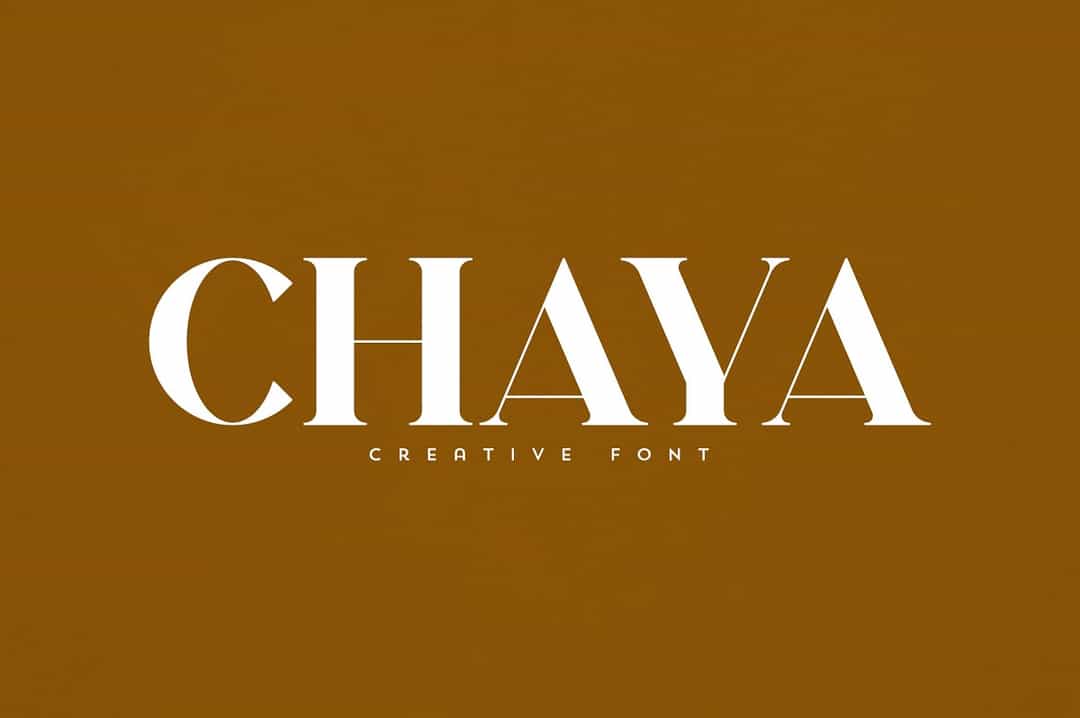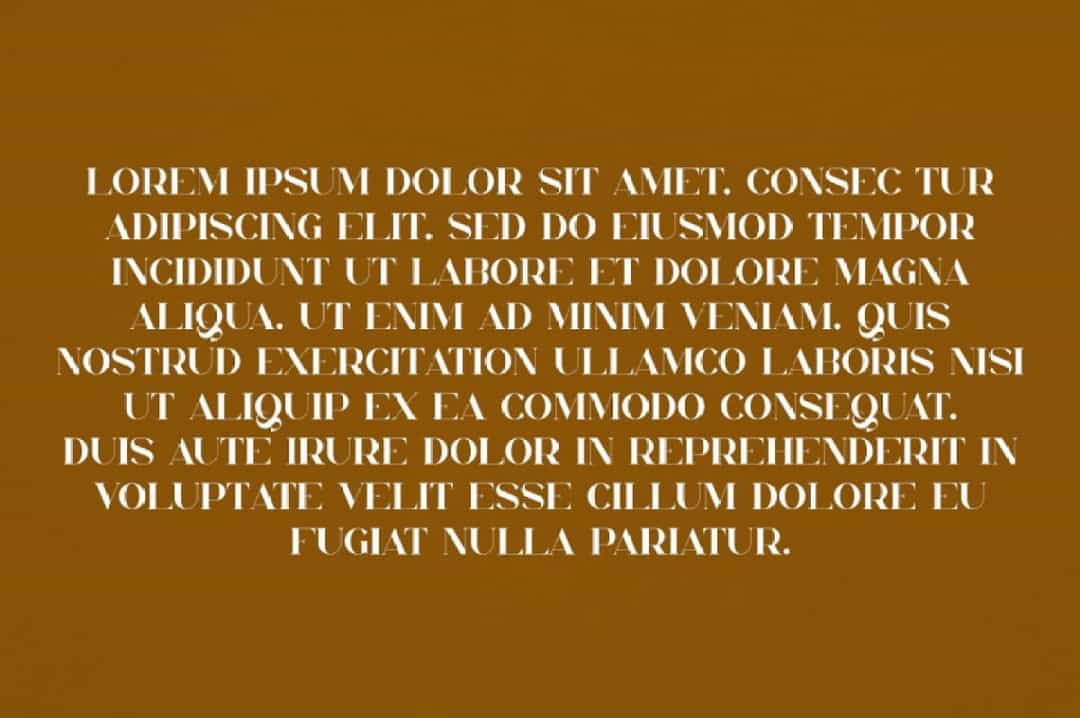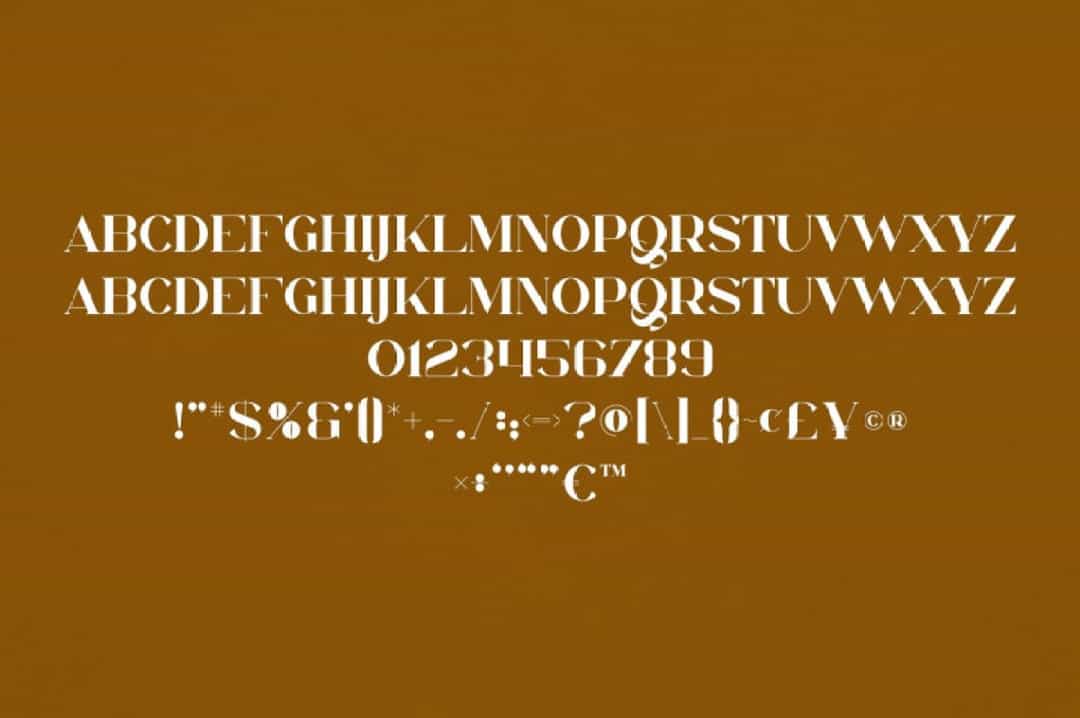
Chaya is an elegant serif typeface designed to add something special to any piece of typography! Perfect for headlines, logos and branding – or simply text overlay – Chaya stands out with its vibrant serifs that give any piece an individual look!